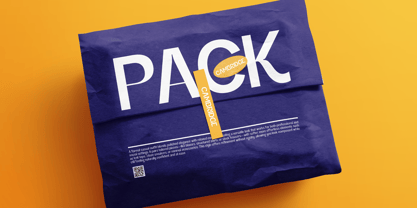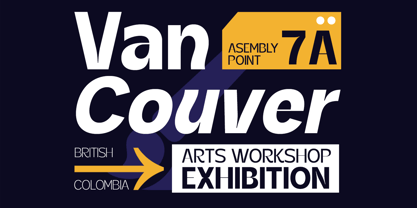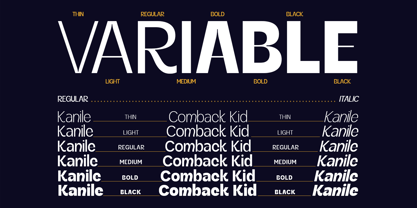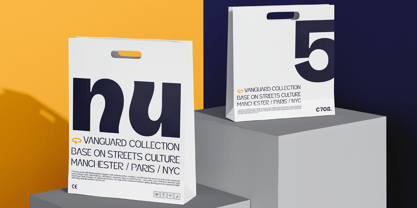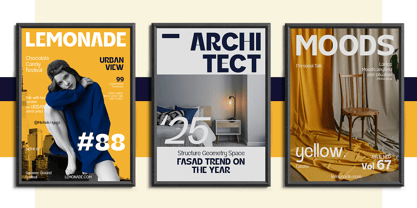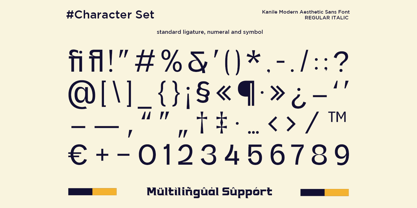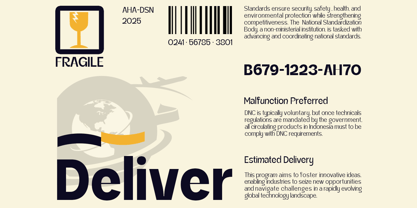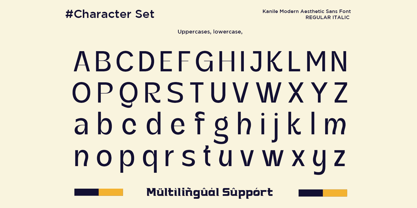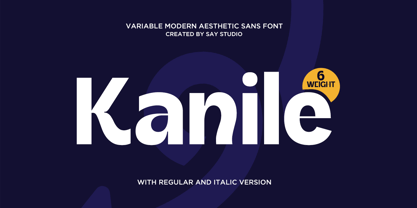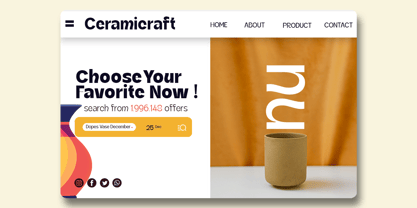
Kanile
by Say Studio
The Kanile Font Family was designed by Mussyayin and published by Say Studio. Kanile contains 12 styles and family package options. More about this family
Kanile is a modern aesthetic sans serif typeface designed to deliver clean geometry, refined proportions, and exceptional versatility. Built as a complete variable font family with six weights ranging from Thin to Black, plus matching italic styles, Kanile offers seamless flexibility for modern branding, editorial layouts, digital interfaces, and professional design projects. Its balanced letterforms, multilingual support, ligatures, numerals, and symbols make it a reliable choice for contemporary typography.
Created for designers who value simplicity and functionality, Kanile performs beautifully across logos, corporate identities, websites, mobile applications, UI/UX, packaging, advertising, presentations, social media, and editorial publications. The variable font technology enables smooth weight transitions while maintaining visual consistency, allowing designers to create dynamic and scalable typography with ease.
Whether you're developing startup branding, premium marketing materials, minimalist posters, fashion campaigns, product packaging, or digital experiences, Kanile provides the clarity and sophistication needed for impactful communication. Combining modern aesthetics with professional performance, this versatile sans serif family is an essential asset for creatives seeking timeless, flexible, and highly functional typography.
• 6 Variable Weights
• Thin To Black Variation
• Regular and Italic Style
• Uppercase and Lowercase
• Number, Symbol, and Punctuation
• Multi Language Support
Designers: Mussyayin
Foundry: Say Studio